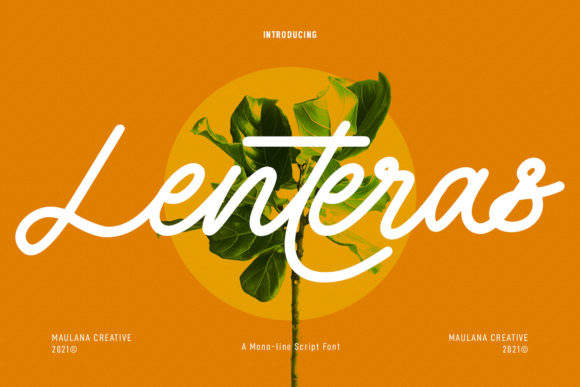
Exploring Lenteras Monoline Script for Modern Branding
When you first encounter Lenteras Monoline Script, it doesn't just sit on the page; it flows. There is a distinct rhythm to this typeface that feels both nostalgic and remarkably fresh. It captures the essence of a time when lettering was a craft, yet it maintains a clarity that is essential for today's fast-paced visual communication. This isn't just another script font; it is a carefully crafted tool designed to bring a human touch to digital and print media. The defining characteristic here is the monoline weight—unlike traditional calligraphy where strokes vary wildly from thick to thin, Lenteras maintains a consistent line width. This results in a look that is clean, organized, and highly legible, even when used in smaller sizes or longer words.
The personality of Lenteras Monoline Script is best described as vintage with a modern twist. It avoids the overly flourished loops that can make script fonts difficult to read, opting instead for smooth, balanced curves. This balance is what makes it a versatile premium font. It possesses a warmth that sans serif fonts often lack, yet it avoids the stuffiness that can sometimes accompany traditional serif typefaces. For designers and entrepreneurs, this specific aesthetic offers a middle ground: it feels personal and handwritten without sacrificing professionalism. It is the typographic equivalent of a firm handshake paired with a warm smile—confident, inviting, and memorable.
Strategic Applications in Visual Identity
Understanding where a font excels is just as important as liking how it looks. In the realm of brand identity, consistency is king, but personality is the kingdom. Lenteras Monoline Script shines brightest in environments where you need to establish an emotional connection with the audience immediately. Consider fashion branding or lifestyle blogs; these industries rely heavily on visual storytelling. A logo designed using this typeface suggests a brand that values aesthetics but isn't afraid to be approachable. It works exceptionally well for logotypes, headers, and sub-headings where the goal is to capture attention and set a mood rather than convey dense data.
Beyond logos, think about the physical experience of your brand. Packaging design is a tactile medium where typography can make or break the shelf appeal. Imagine a coffee bag, a artisanal candle, or a boutique clothing label featuring Lenteras Monoline Script. The consistent line weight translates beautifully to embossing, foil stamping, and screen printing, ensuring that the text remains crisp regardless of the manufacturing process. Because it is a display font at heart, it commands the stage on product packaging, guiding the consumer’s eye to the product name and creating an immediate association with quality and care.
Pairing and Hierarchy in Modern Typography
One of the most common questions I hear from clients and junior designers is how to handle font pairing. A script font can be intimidating because it demands space and attention. However, Lenteras Monoline Script is surprisingly cooperative. Its clean, consistent baseline makes it an excellent partner for a wide range of other typefaces. If you are going for a modern, minimalist look, try pairing it with a geometric sans serif font. The sharp, straight lines of the sans serif will contrast beautifully with the curves of Lenteras, creating a dynamic visual hierarchy that is easy for the eye to navigate.
Conversely, if your project calls for a more traditional or editorial feel, consider using a sturdy serif font for your body text. The serif provides the necessary structure for long-form reading, while Lenteras adds a decorative flair to pull quotes, chapter titles, or magazine covers. This combination is a staple in editorial design, where the interplay between text and imagery drives the reader's engagement. The key is to let Lenteras do the talking for headlines and short bursts of text, allowing its personality to shine without overwhelming the reader.
Practical Considerations for Implementation
While the aesthetic appeal is strong, practical application is where many creative font choices fail. As a designer, you must always test for readability. Because Lenteras Monoline Script is a connected script, you need to be mindful of kerning and tracking, especially in digital applications like web design and social media graphics. On a mobile screen, intricate scripts can sometimes blur together. However, the "monoline" nature of this typeface is its saving grace. It maintains its integrity better than high-contrast calligraphy scripts. My advice is to always view your design at 100% scale on the target device. If you can read the header comfortably at arm's length, you have a winner.
For those utilizing this in logo design, pay close attention to the spacing between letters. Script fonts often require manual adjustment of the kerning to ensure that the connections between letters look natural and not mechanically forced. Lenteras generally handles spacing well out of the box, but a little manual tweaking can elevate a logo from good to exceptional. Furthermore, consider the medium. If you are creating print design assets, ensure your printer can handle the fine lines if you choose to use the font at a very small size. For digital media, ensure your CSS is set up to handle anti-aliasing correctly so the curves remain smooth on high-resolution displays.
The value of a distinct typography style cannot be overstated in a crowded market. Generic fonts blend into the background; distinct fonts create recognition. Whether you are a crafter selling on Etsy, a publisher designing a book cover, or a marketer creating an email campaign, the right typography signals to your audience that you pay attention to details. Lenteras Monoline Script offers that rare combination of artistic flair and commercial utility. It is a tool that respects the history of lettering while serving the needs of modern, fast-paced content creation. Add it to your toolkit, test it in your next project, and watch how it transforms a flat design into a living, breathing brand statement.